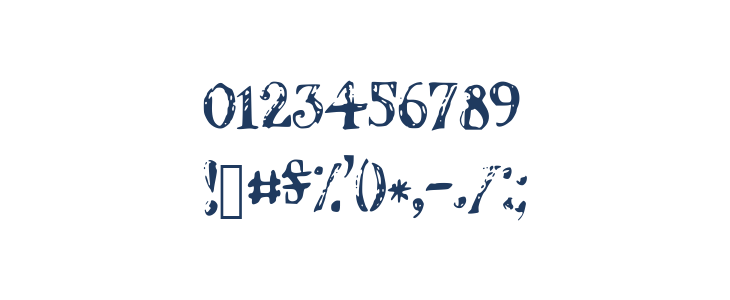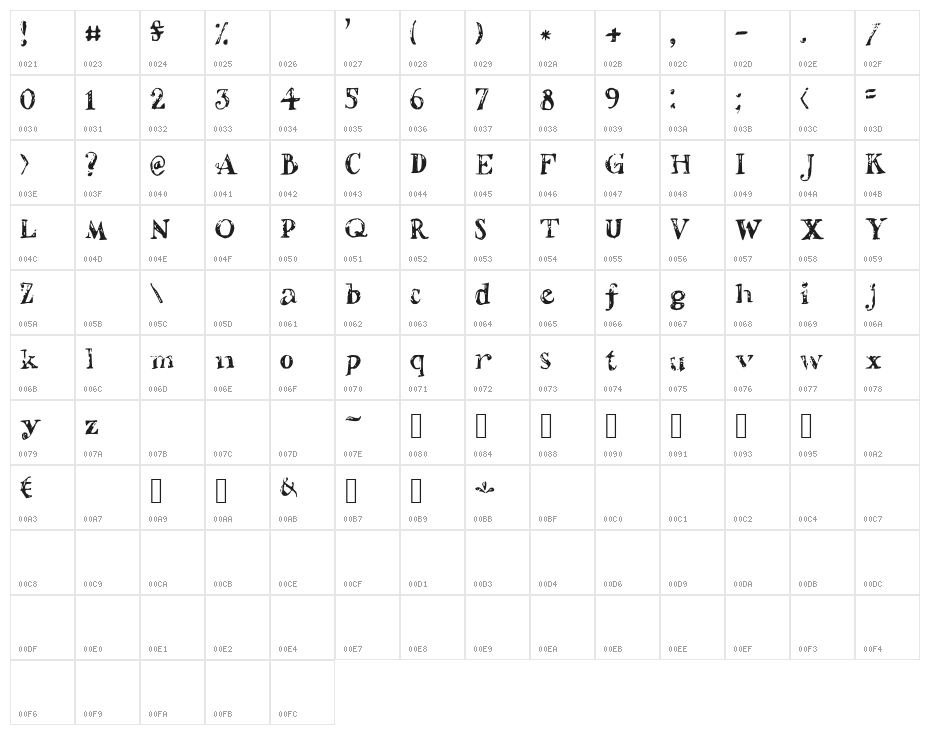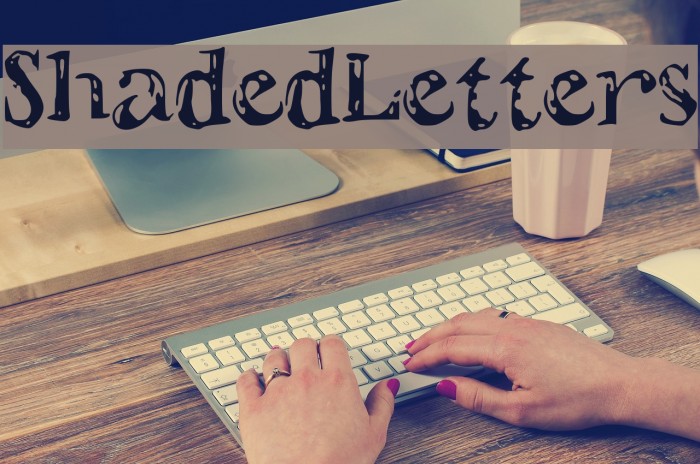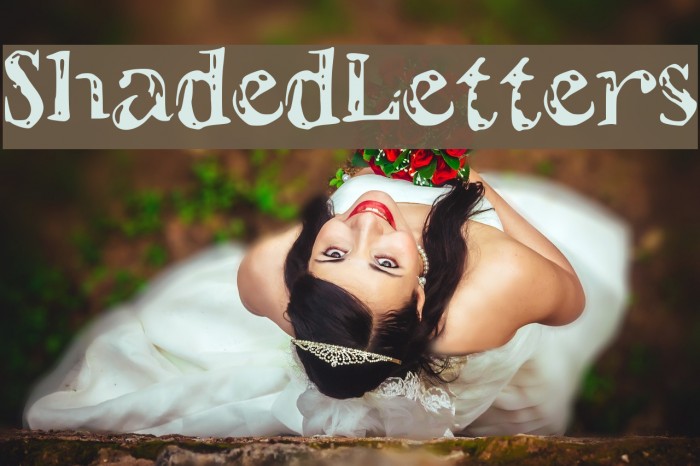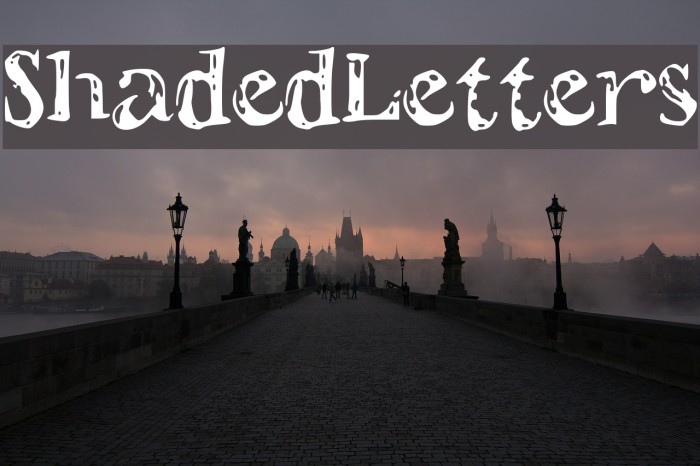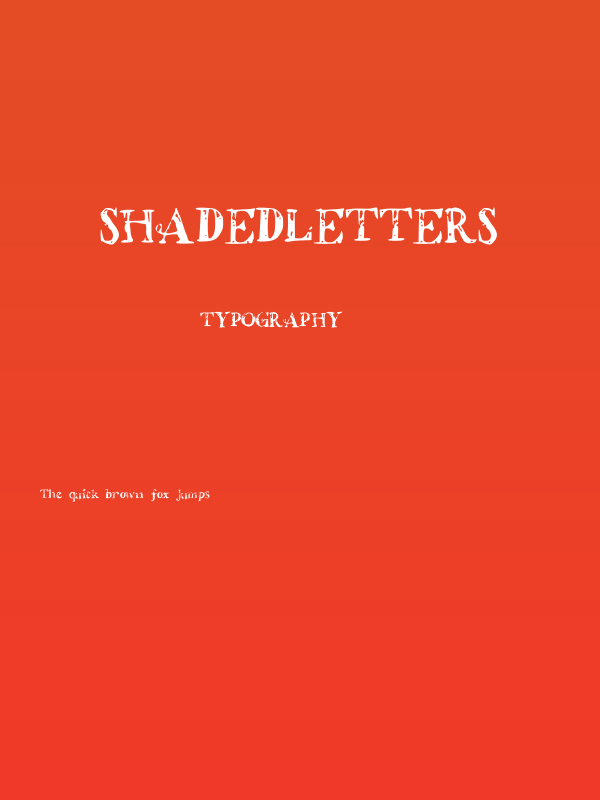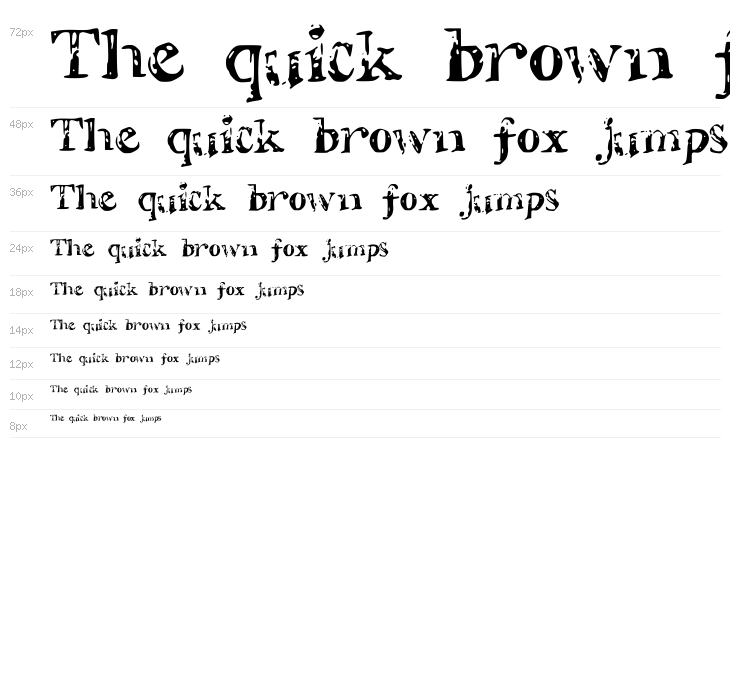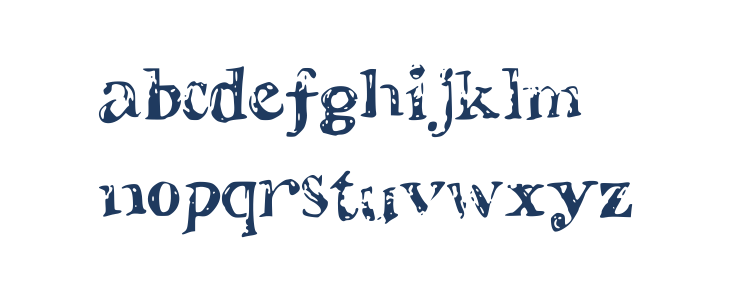
ShadedLetters Font
ShadedLetters Description
This font features a distressed, textured appearance that gives it a vintage and rugged feel. The characters are bold and have a unique, weathered look with irregular edges and shading that creates a sense of depth and dimension. The uppercase and lowercase letters maintain a consistent style, with the uppercase being slightly more pronounced. Numbers and special characters follow the same aesthetic, making the font versatile for various creative applications. The overall design is eye-catching and adds a touch of character and personality to any project.
| Overall Style | Vintage, Decorative |
| Proposed Projects | Ideal for vintage-themed designs, posters, album covers, and branding that requires a rugged, artistic touch. |